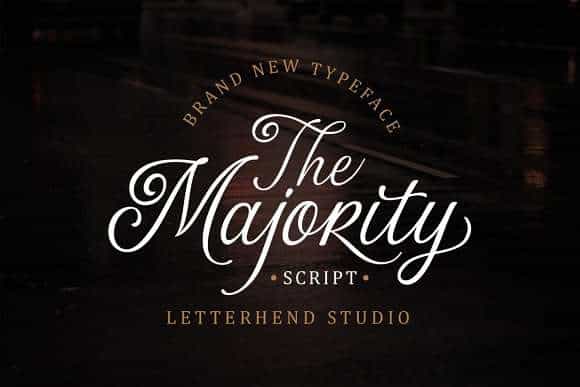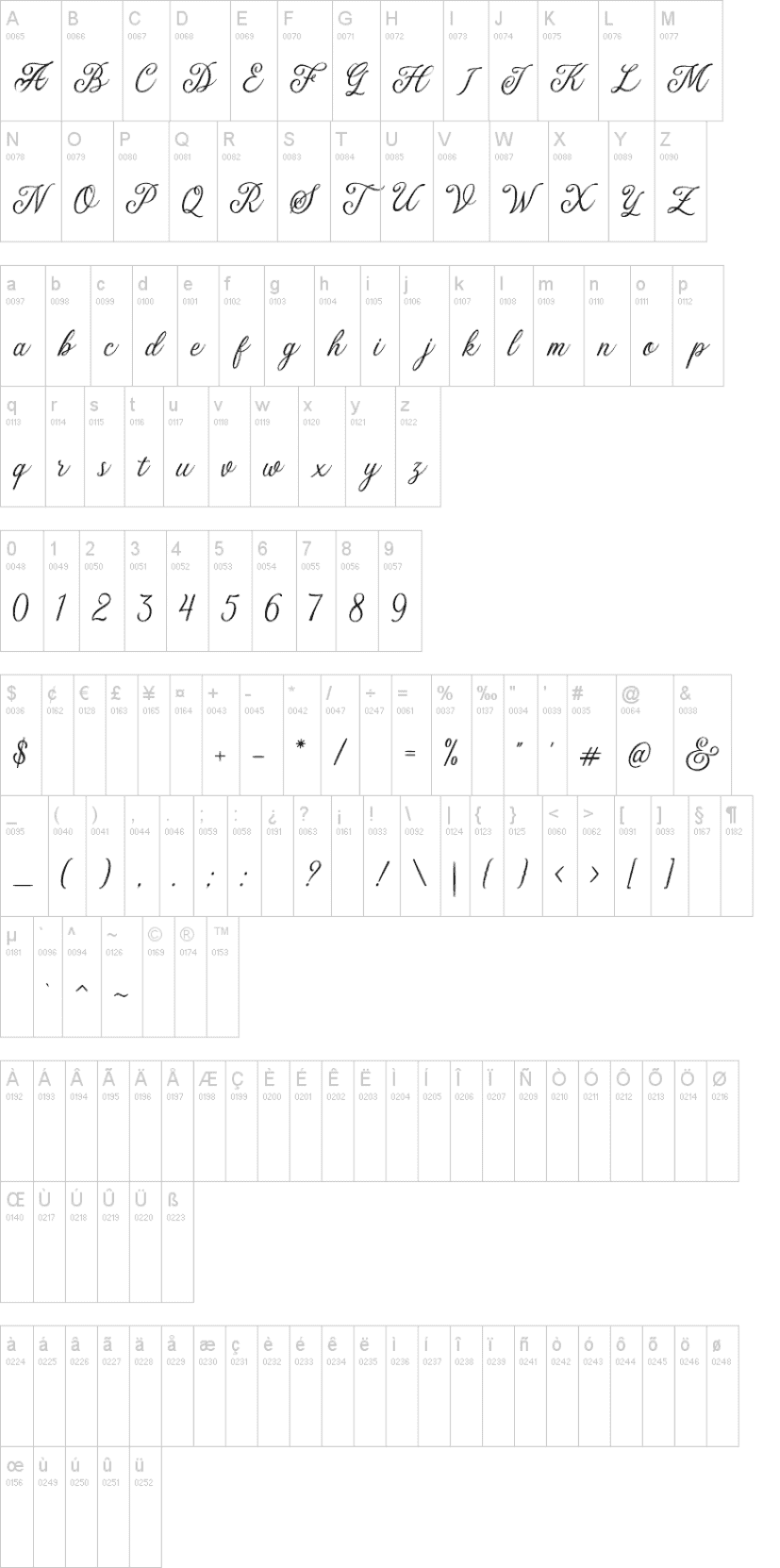
Discover The Majority Font, part of the Calligraphy collection—a versatile and unique font perfect for adding a personal touch to your projects. Download it for free and enjoy crafting designs with style, from invitations to social media posts. This font is available exclusively for personal use, giving you the freedom to create without limits. Unlock your creativity with The Majority Font today!
Here’s another one from us, The Majority Script. An excellent script that stylizes and gives the graceful touch and the feel of luxury. This font is ideal for tshirt design, logo/brand, signature, headline, lettering quotes, and so on. It also has uppercase, lowercase, punctuations/symbols, numerals, stylistic set alternate, ligatures, etc It also supports multilingual.